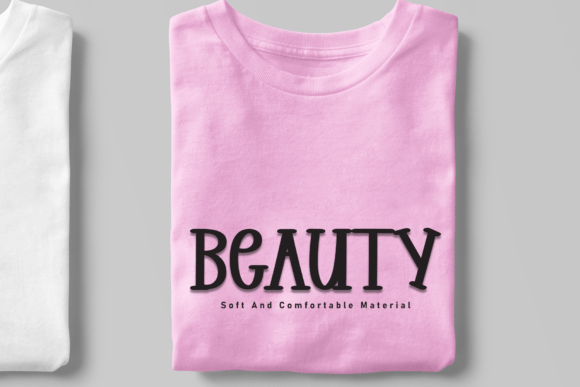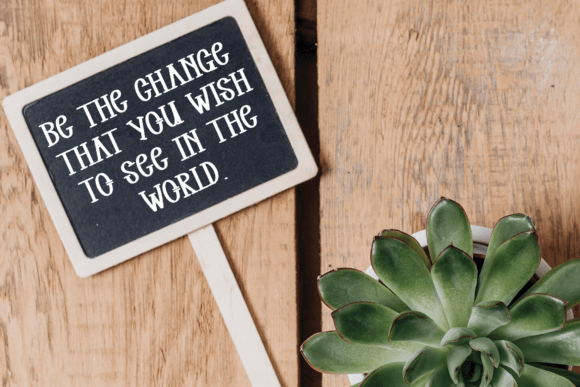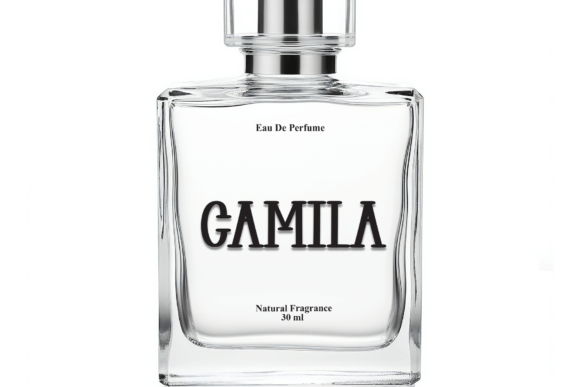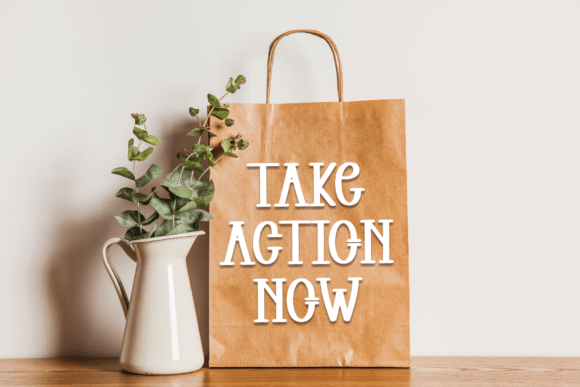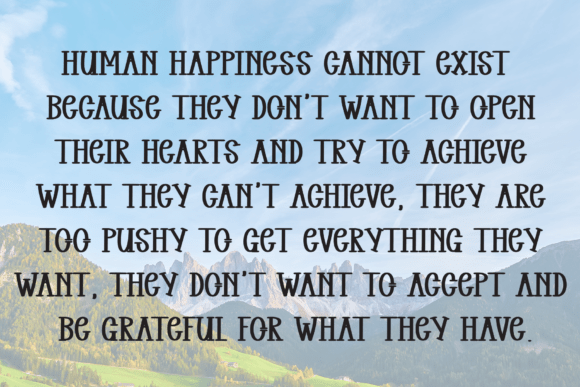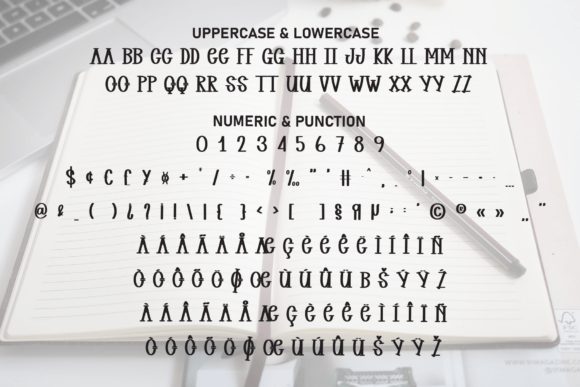
Introduction to Smart Monday Font
Meet the charming handwritten display font – tenderly sweet and delightfully friendly.
With its endearing and playful demeanor, it breathes life into wedding invitations and greeting cards, infusing them with a delightful touch of whimsy This font is Your perfect sidekick, lending an air of merriment and joy to any design that beckons for an enticing dose of fun.
Key Features of Smart Monday Font